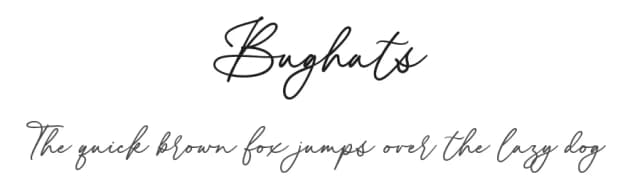
About Soul Collections Font
Soul Collections ships with 1 OpenType feature you can switch on in apps that support them (Illustrator, InDesign, Affinity, Figma, CSS font-feature-settings).
Soul Collections Font is a script font that shines as a display or heading face. Pair it with a clean sans-serif or serif font for body text β the contrast creates a clear hierarchy while the two styles stay balanced and easy to read.
Soul Collections Font